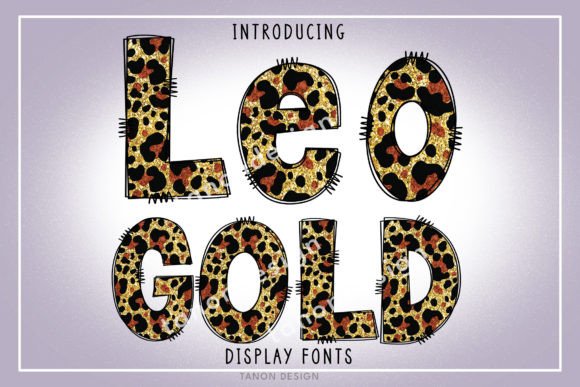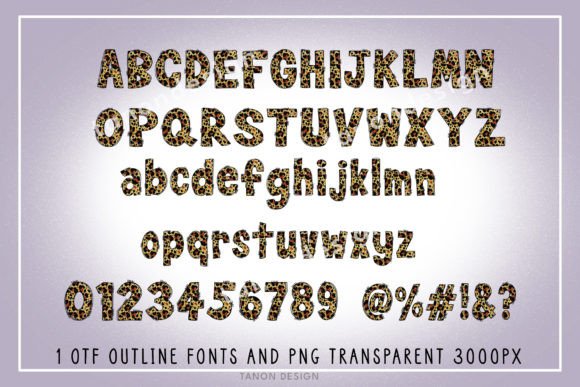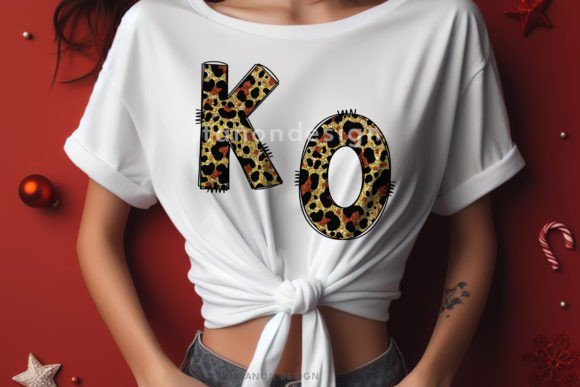
Leopard Gold Font
About the Leopard Gold Font
Experience the unique personality of Leopard Gold Font, a font designed for impact. Leopard Gold fonts
It will look fantastic on all your Christmas-themed designs including t-shirt designs, mug designs, digital designs, crafts, cards, and any projects!
Leopard Gold’s bold, decorative style is ideal for headlines, short impactful phrases, and branding elements where a touch of festive extravagance is desired. It excels in projects like Christmas cards, gift tags, and social media graphics. However, its ornate nature makes it unsuitable for body text or UI elements requiring high readability. Avoid using it for long paragraphs or dense text.
This font pairs well with clean sans-serif fonts like Open Sans or Lato for a balanced contrast, or a more playful script font such as Pacifico for a whimsical feel. For a more sophisticated look, consider pairing it with a classic serif font like Garamond or Playfair Display.
The overall personality is celebratory and luxurious, making it perfect for brands focused on premium products or holiday-themed designs.